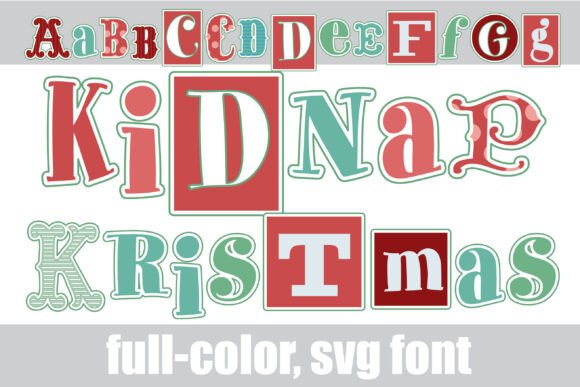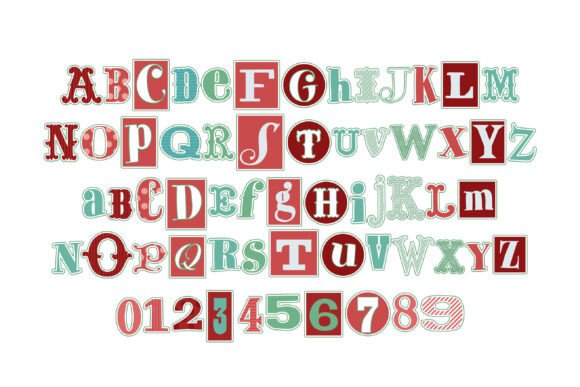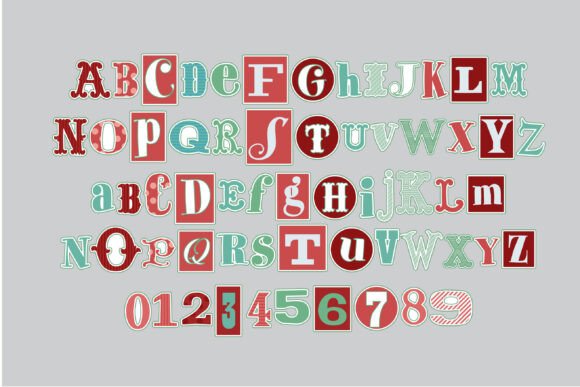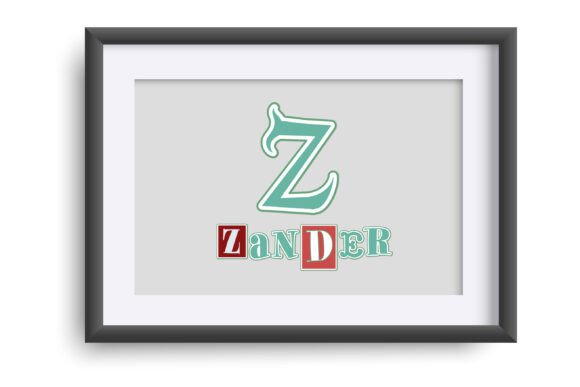
Kidnap Kristmas Font
About the Kidnap Kristmas Font
Introducing the Kidnap Kristmas Font, a beautifully crafted typeface designed to elevate your creative projects. This full-color font features a ransom note style font in a Christmas color palette. There is an alt version you can access through your system’s character map that contains additional colors of all the letters. This font works best for titles, displays, posters and more. Please note color fonts will show as black in non compatible programs. This font type is compatible with Silhouette Studio.